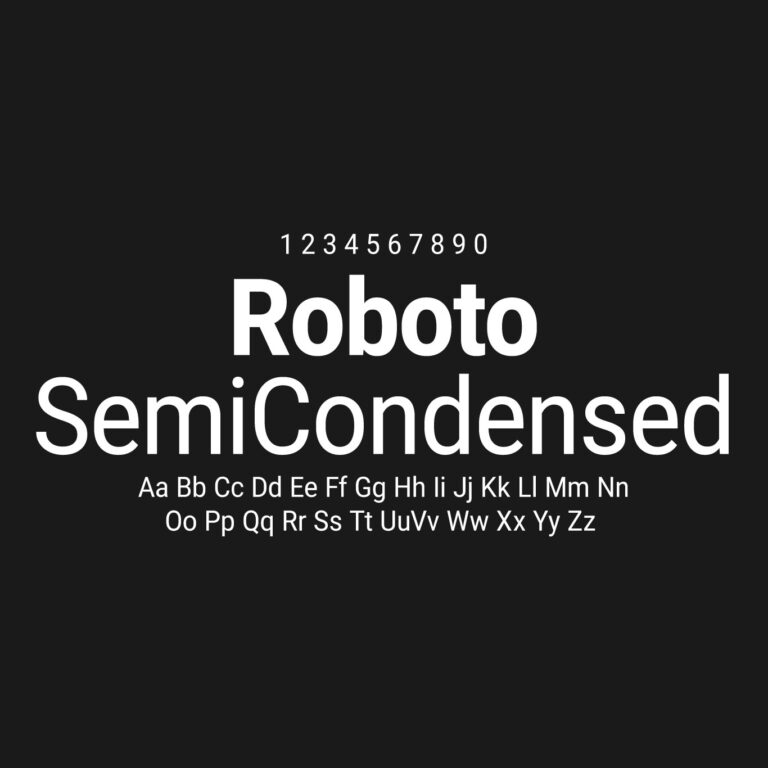
Roboto SemiCondensed is a narrower version of the standard Roboto family, designed for situations where you need to save horizontal space without making the text feel as tight as a fully condensed font. It keeps the familiar Roboto structure, but gives layouts a more compact rhythm.
This makes it useful for dashboards, tables, navigation menus, sidebars, app interfaces, admin panels, reports, presentation slides, labels, product cards and responsive web layouts where space matters. Compared with regular Roboto, the SemiCondensed family can fit more text into the same area while still keeping a clean and readable interface style.
Roboto SemiCondensed is especially helpful when a design needs density without feeling cramped. It works well for UI labels, menu items, metadata, data-heavy screens and compact headings. For more open layouts, regular Roboto may feel more natural; for stronger compression, Roboto Condensed may be a better fit.
Visual Style: Compact, clean, readable, modern, technical
Best For: Dashboards, tables, admin panels, mobile interfaces, navigation menus, reports, presentations and responsive web layouts
Designer: Christian Robertson
Design Notes
Roboto SemiCondensed is a practical choice when regular sans-serif text feels too wide, but a fully condensed font feels too narrow. It sits in the middle: compact enough for dense interface design, but still open enough for everyday reading.
Regular and Medium are useful for interface text, table labels, navigation and dashboards. SemiBold and Bold work well for compact headings, section titles and card titles. ExtraBold and Black are better for posters, thumbnails, presentation covers and strong display text. Thin, ExtraLight and Light should be used carefully, especially at small sizes, because narrow lightweight text can lose clarity faster on screens.